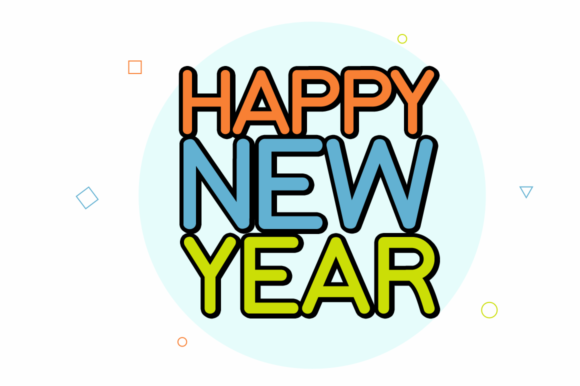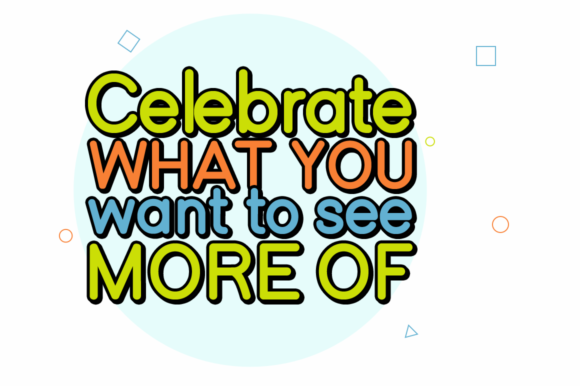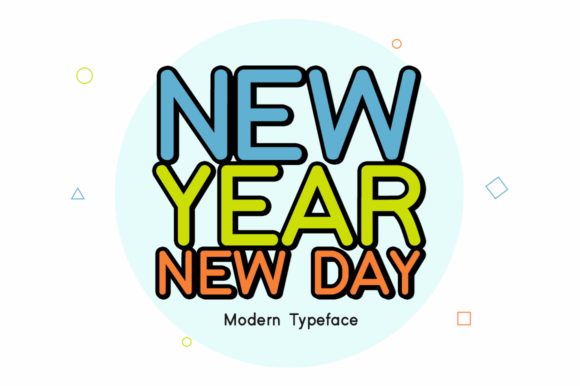
Introduction to New Year New Day Font
New Year New Day is the perfect font for kicking off the new year.
Key Features of New Year New Day Font
Why Choose New Year New Day Font?
New Year New Day Font offers exceptional quality and versatility, making it a valuable addition to your design toolkit. Whether you’re creating for personal projects or commercial use, New Year New Day Font delivers professional results.